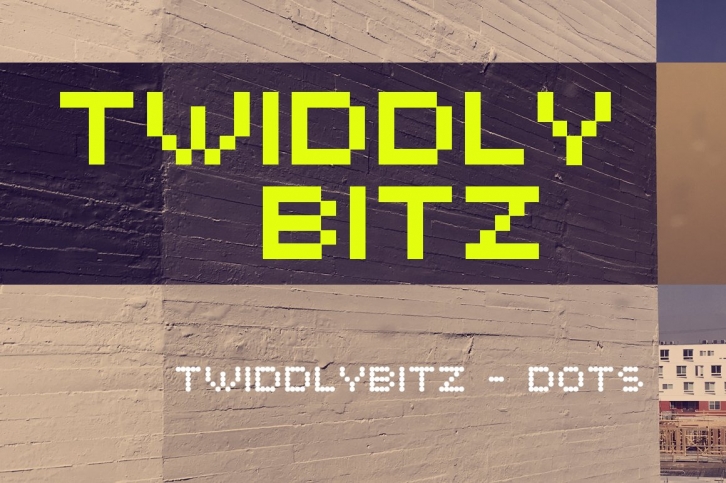
TwiddlyBitz & TwiddlyBitz Dots
Twiddlybits is an bitmap font that also includes a "Dots" version. The Regular version is great for 8 bit computer screen and video game use while the Dots version is lends itself to something more like a digital clock or airport flight display. Both are all-caps fonts. All you need for your digital destruction.